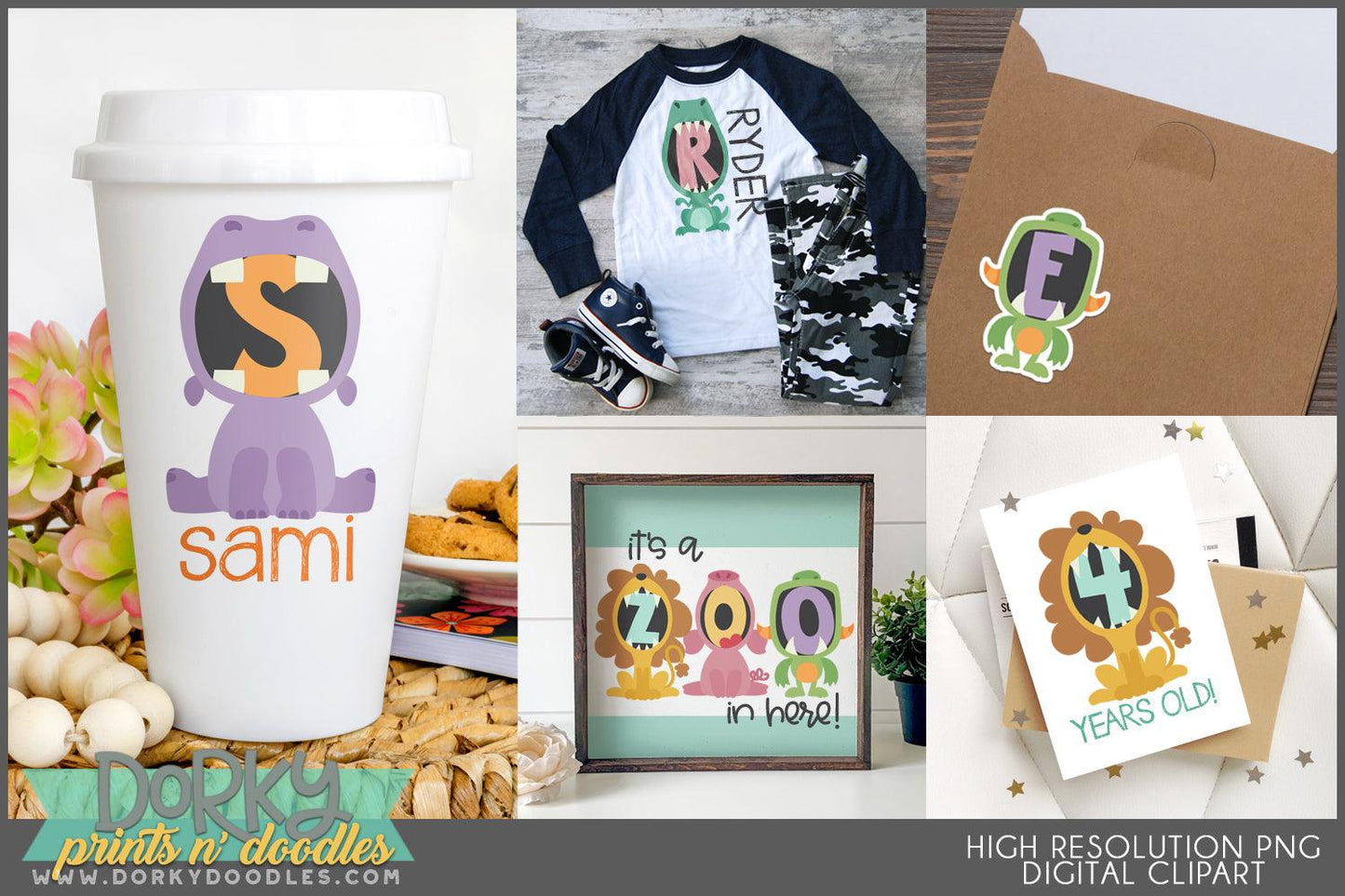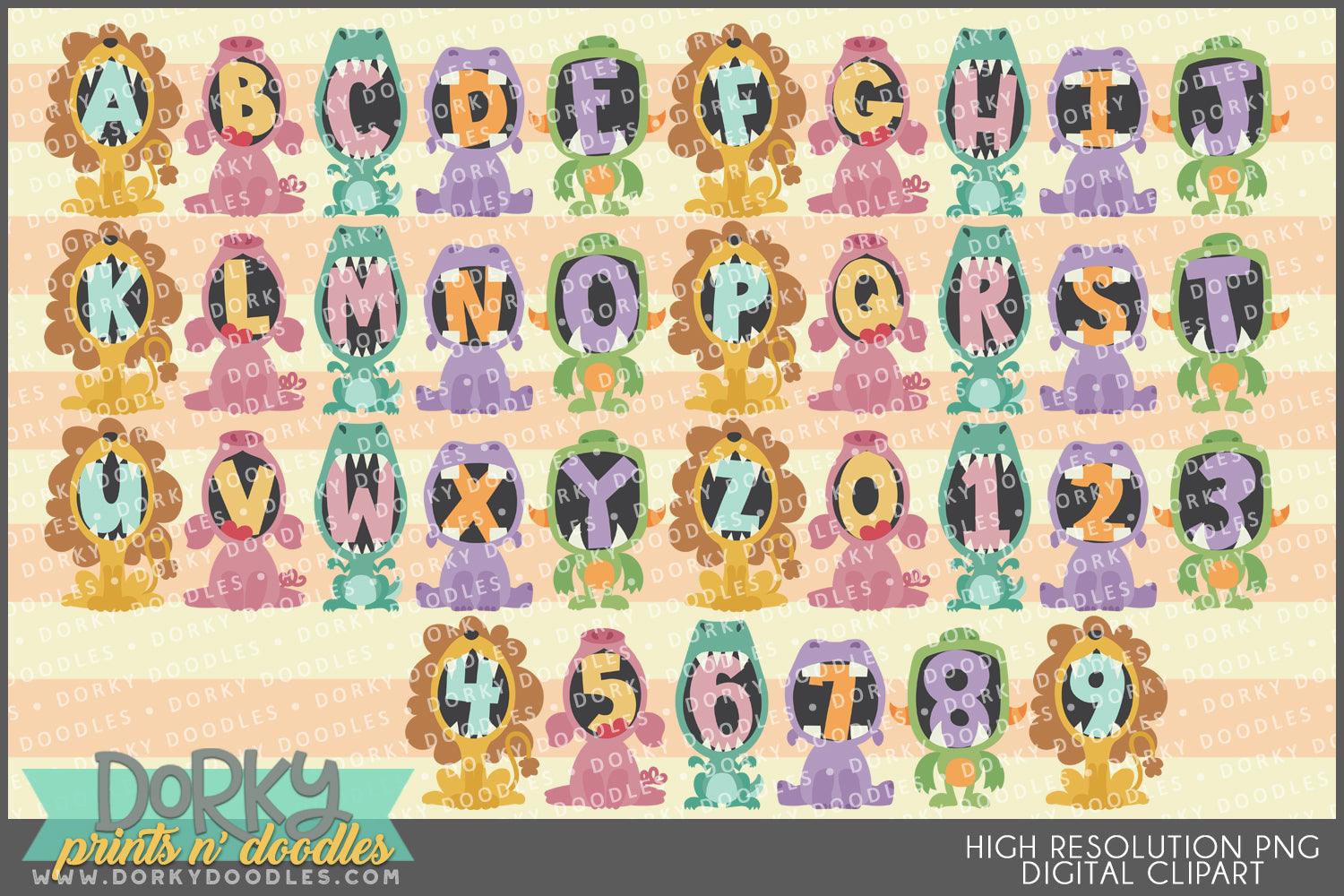
Open Mouth Animals Alphabet Clipart
• letters A-Z featuring lions, pigs, dinosaurs, hippos, and monsters
• numbers 0-9 featuring cute animals with open mouths